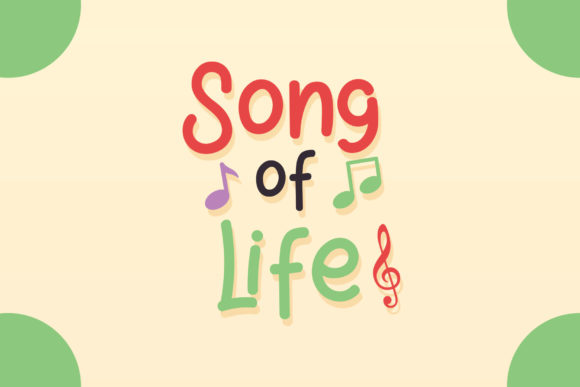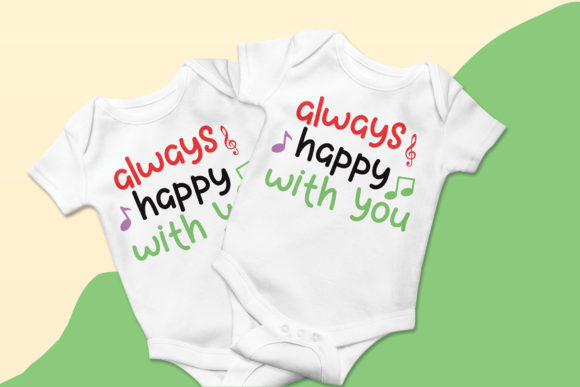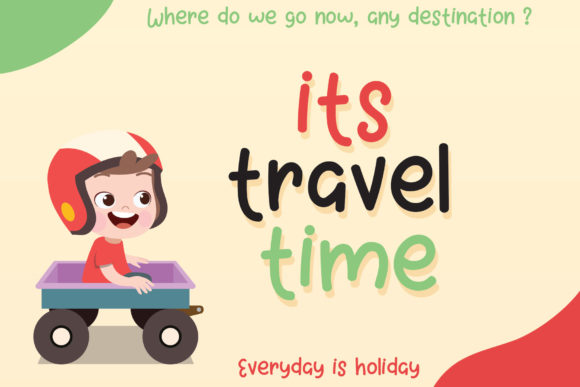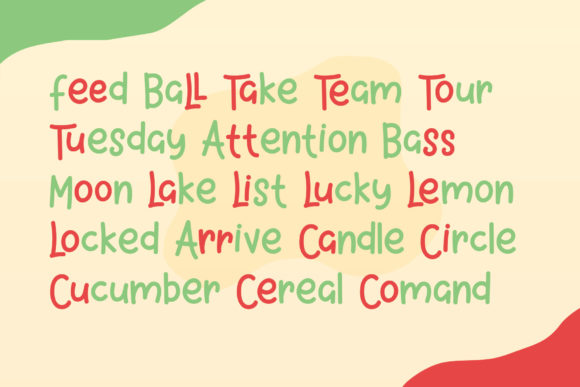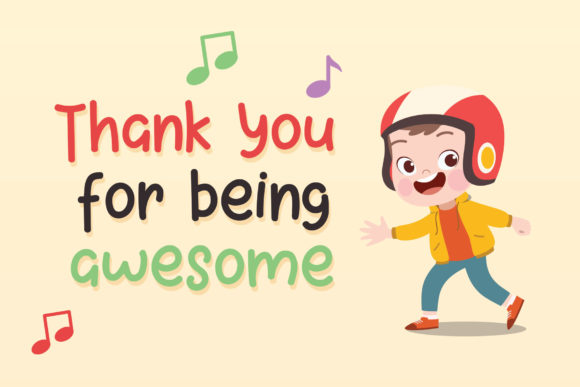
HomeScript FontsHoliday Song Font Script Fonts Holiday Song Font FacebookXPinterestWhatsApp Holiday Song Font Poster 2 Holiday Song Font Poster 3 Holiday Song Font Poster 4 Holiday Song Font Poster 5 Holiday Song Font Poster 6 About Holiday Song Font Holiday Song is a sweet and friendly handwritten font. Fall in love with its amazing look! DOWNLOAD NOW People also explored Good Vellas Font Clipart Font J-LOG Starkwood Slab Font My Heart Font Beauty Dahyina Font Atmospheric Christmas Font Fresh Coconut Font Cutie Reindeer Font Pable Font 348 0 TagsHoliday Song Font Previous articleWalahard FontNext articleSamerville Font LEAVE A REPLY Cancel reply Comment: Please enter your comment! Name:* Please enter your name here Email:* You have entered an incorrect email address! Please enter your email address here Website: Save my name, email, and website in this browser for the next time I comment. Personal Use Free Rembank Personal Use Free Read more about this font Breather Personal Use Free Read more about this font Daisy Script Personal Use Free Read more about this font Starborn Font Personal Use Free Read more about this font BLOG Best Fonts for YouTube Videos: Make Your Thumbnails Stand Out Best Fonts for YouTube Videos: Make Your Thumbnails Stand Out Choosing the right font can make a massive difference in how your YouTube videos perform.... Fonts That Capture the Spirit of New York City The 10 Best Handwriting Fonts to Add Personality to Your Designs Transform Your Website: Elevate Your Typography with 7 Best Web Font Generators